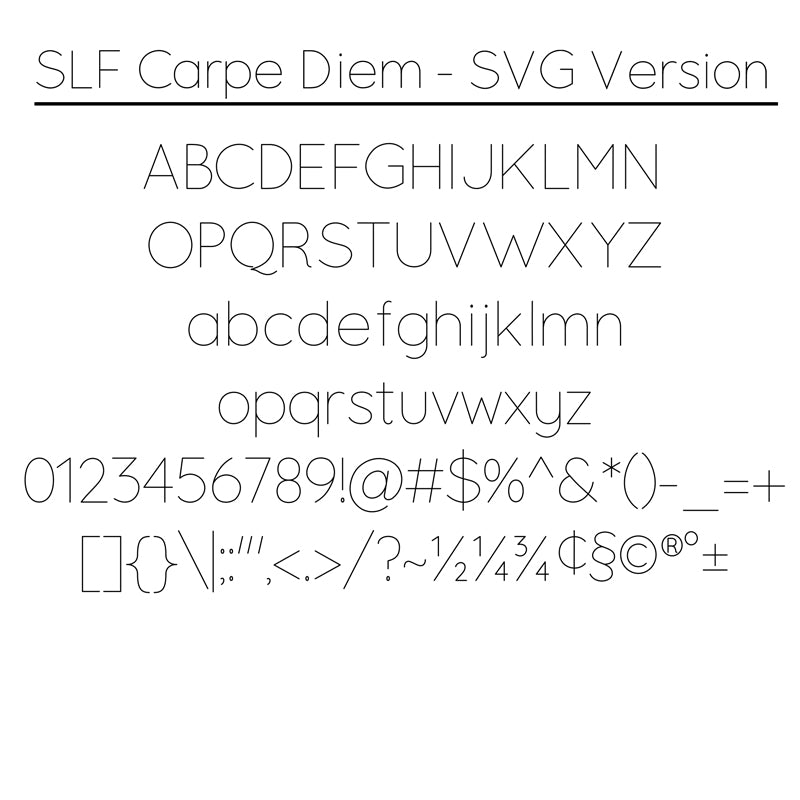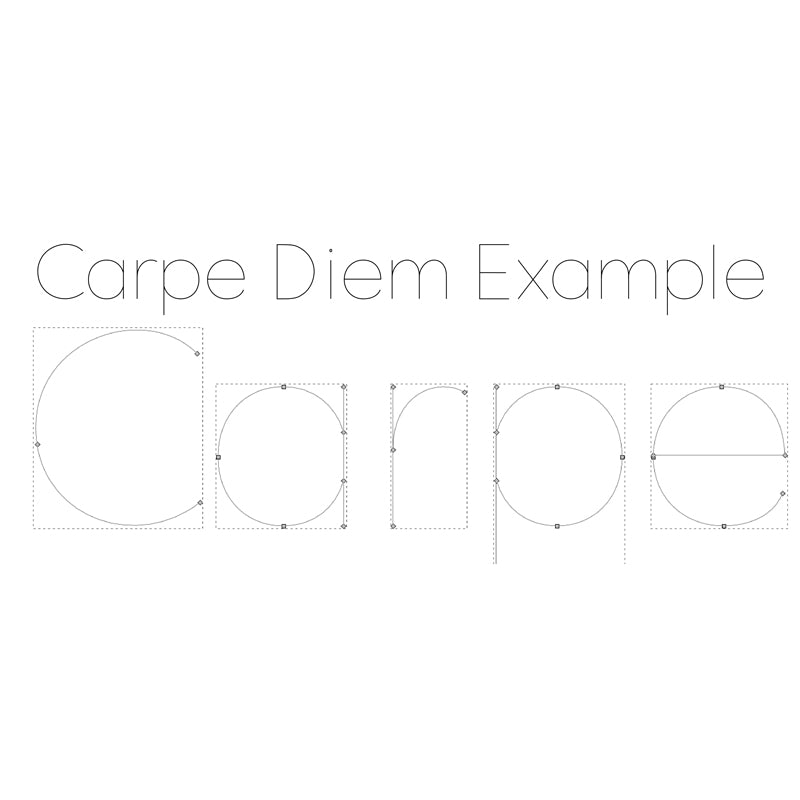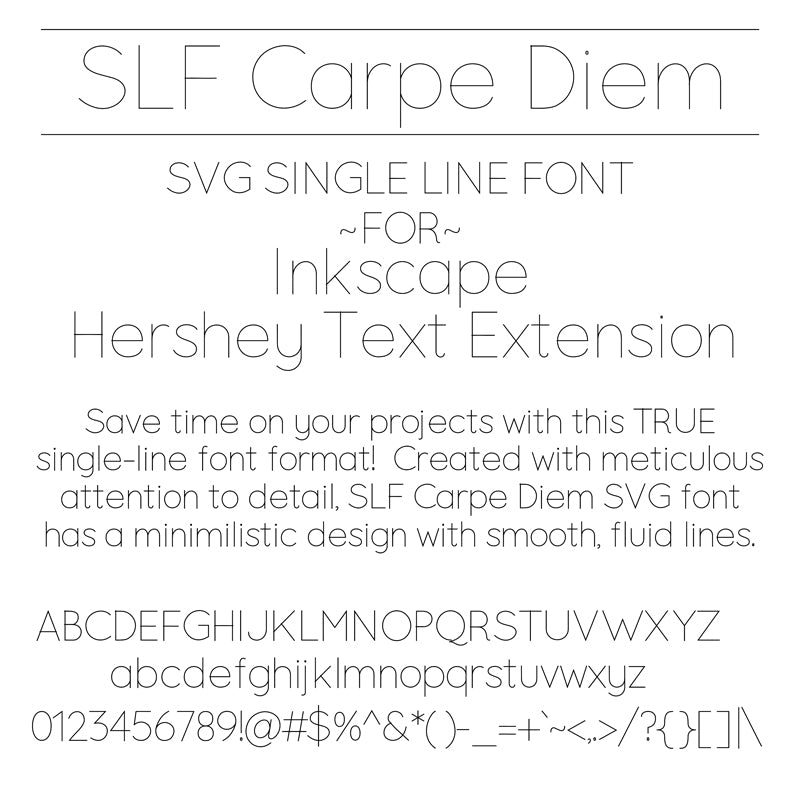
carpe diem svg single line font for inkscape hershey extension
example of slf carpe diem font for inkscape hershey text extension showing smooth curves and minimal segments
slf carpe diem svg font for inkscape hershey text extension
SVG Font - SLF Carpe Diem
Minimalistic Print Style
SLF Carpe Diem is a nice fit for wood and metalwork, as well as for cardmaking, engraving, foil quilling, and embossing.  Perfect for Glowforge, Shaper Origin, and similar machines!
- Clean, Minimalistic Font
We take extra care to create quality fonts with clean lines and curves.  You won't be disappointed in our workmanship and attention to detail!